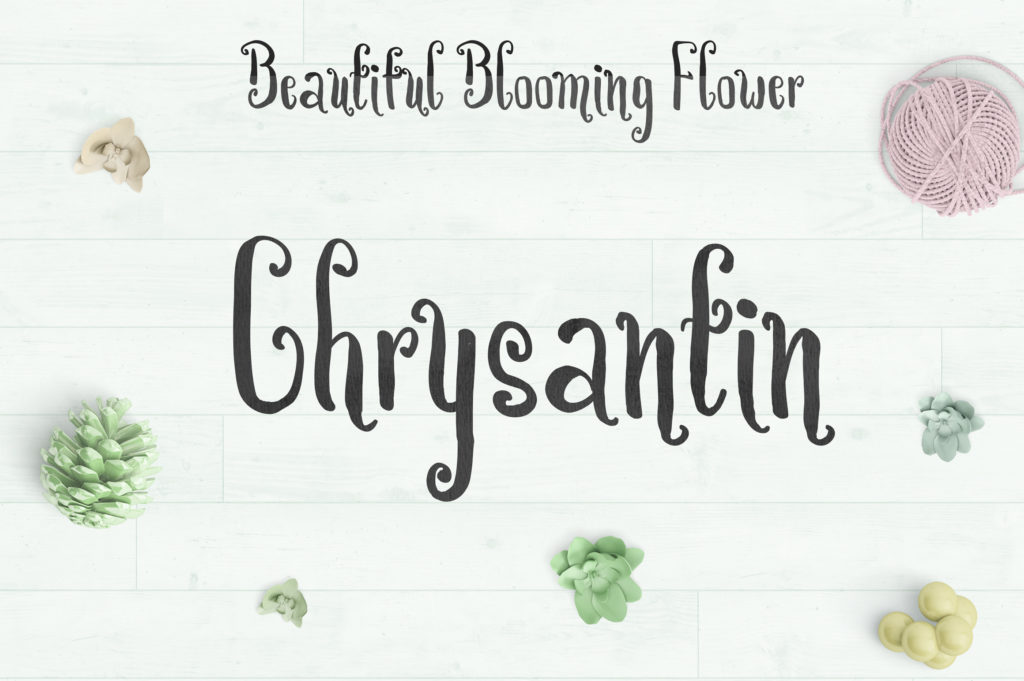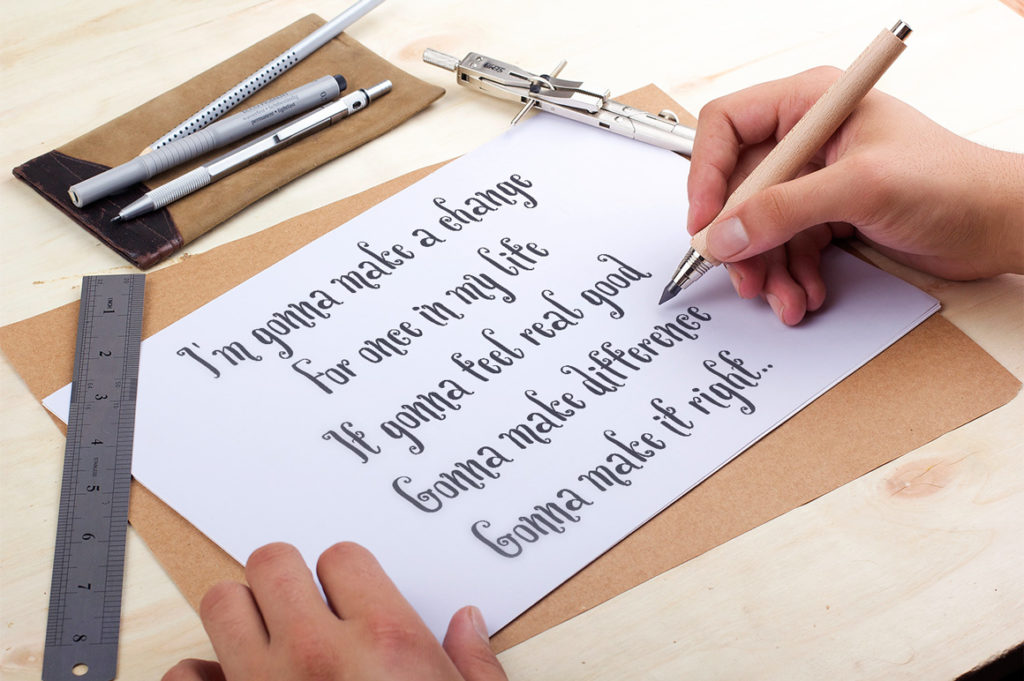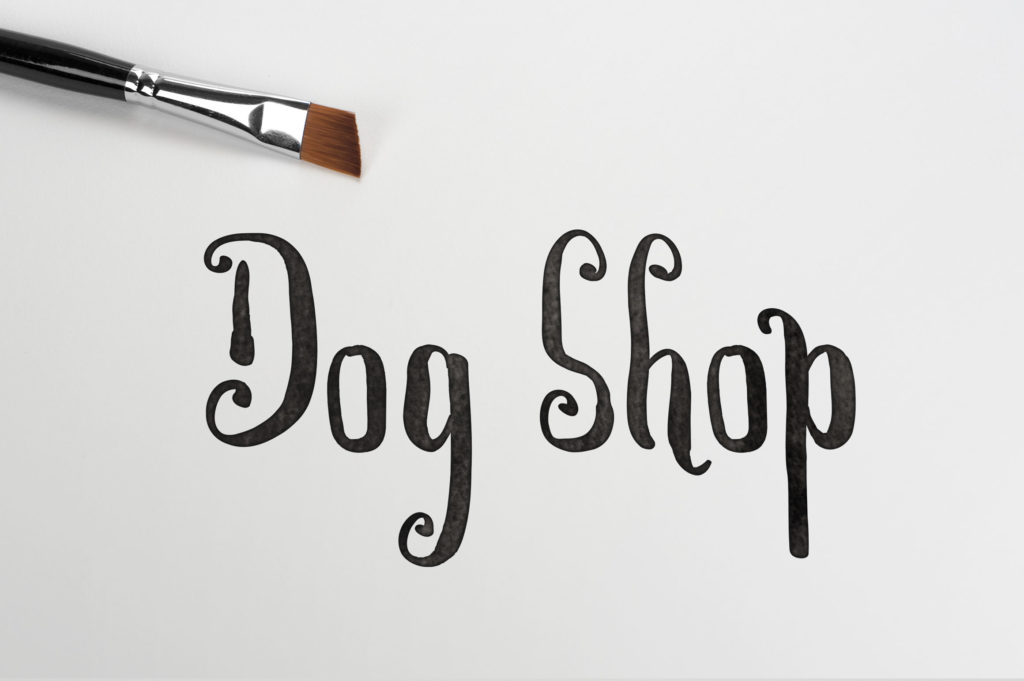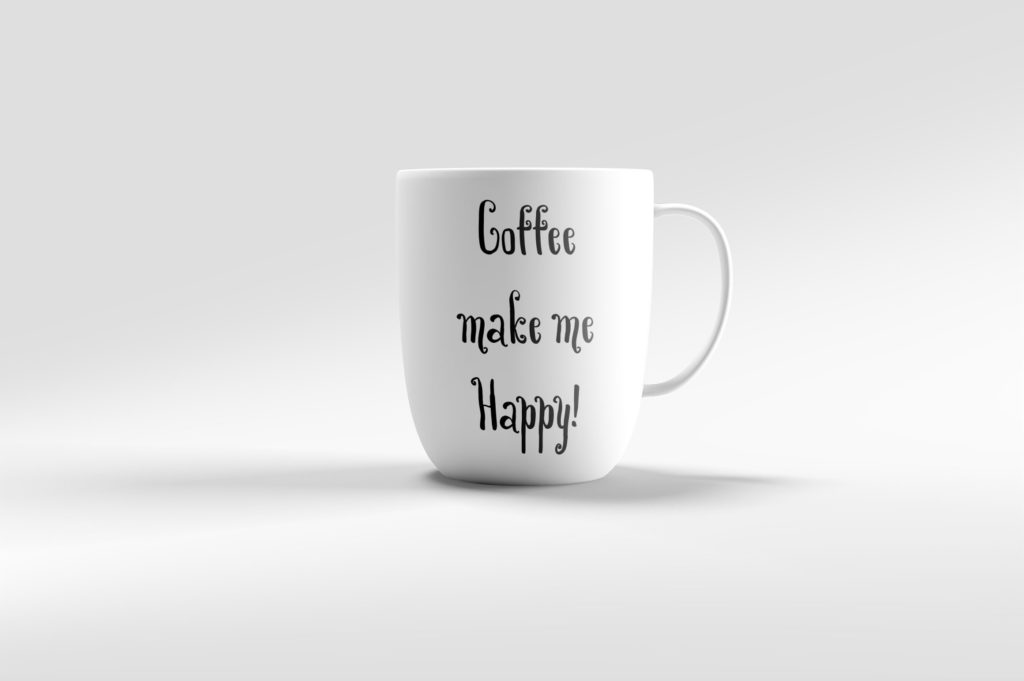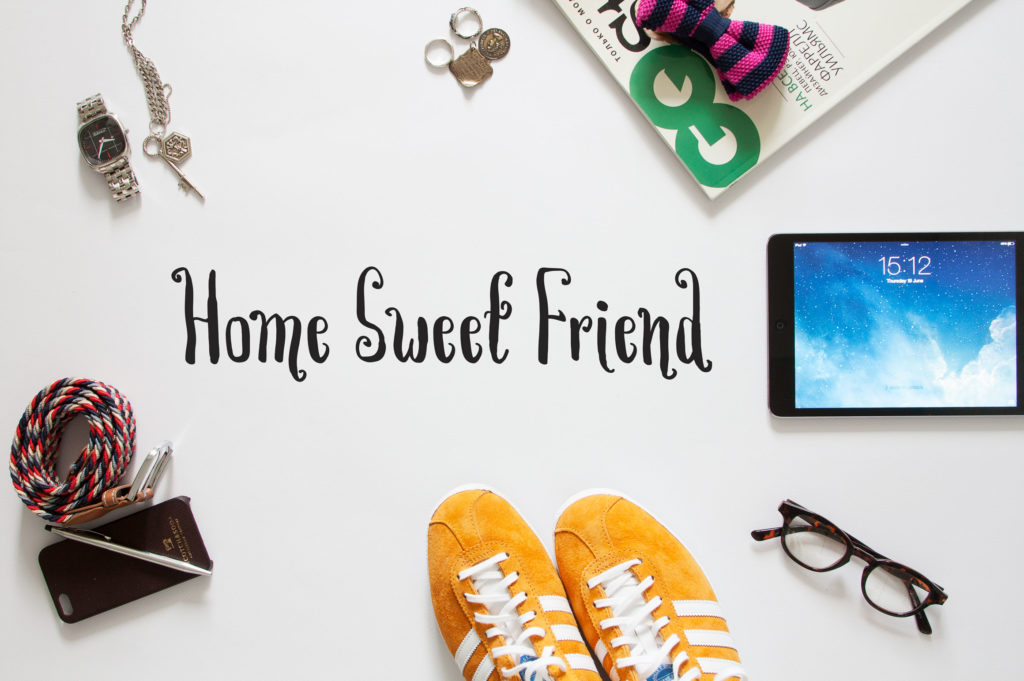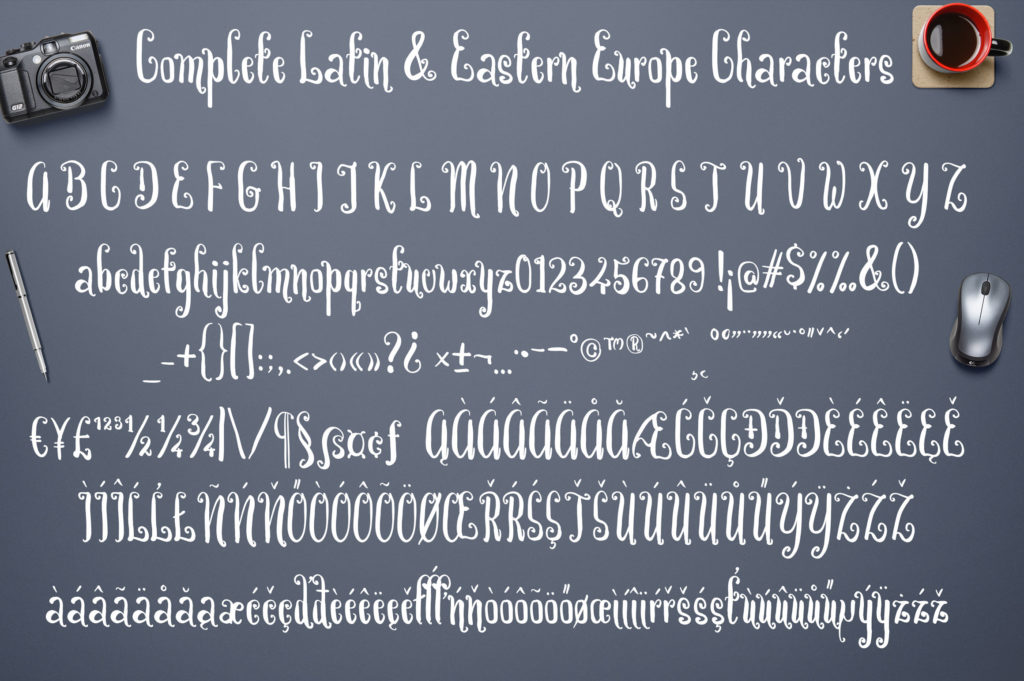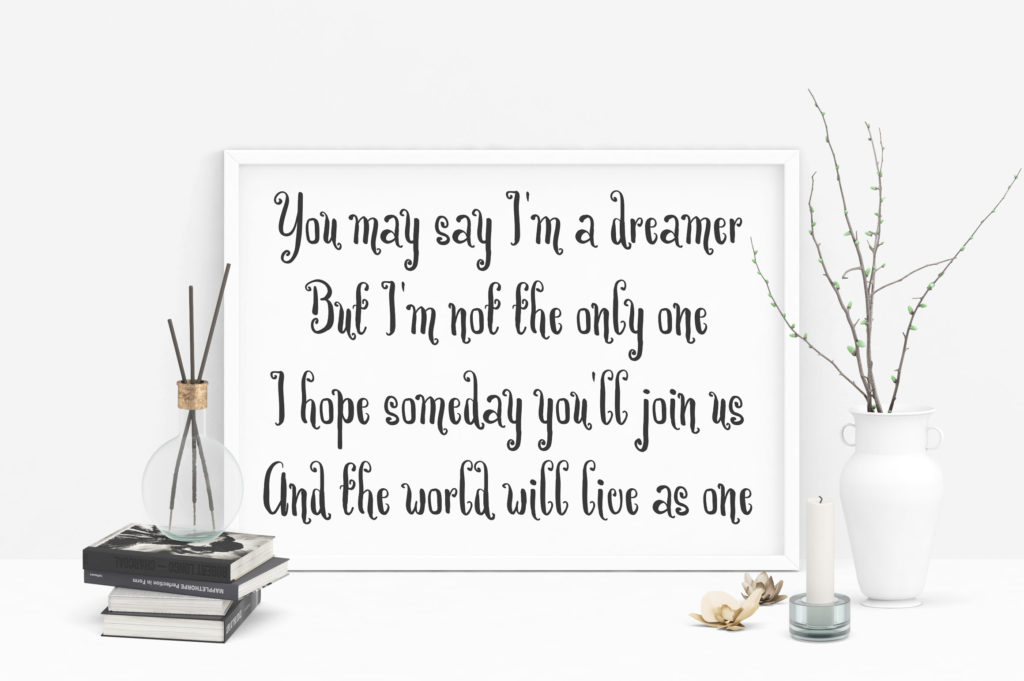
Chrysantin Font
About Chrysantin Font
Chrysantin is a stunning handwritten brush font created by Darwinoo.
This playful font contains 275 unique glyphs and supports basic Latin + Eastern Europe language.